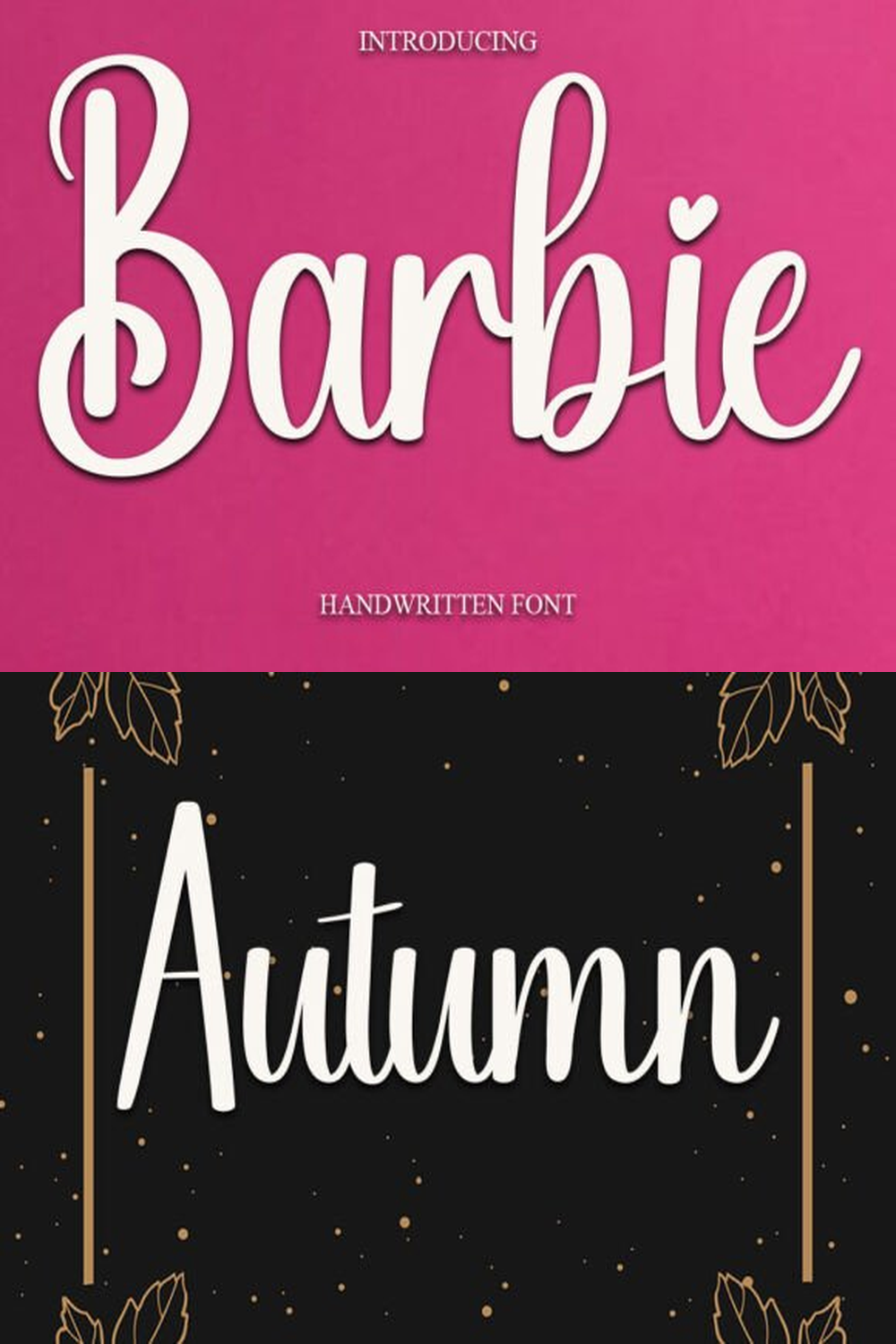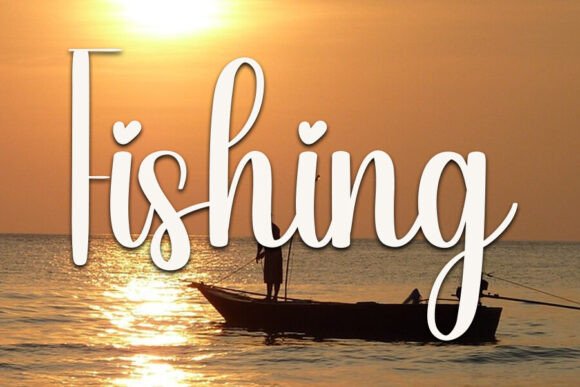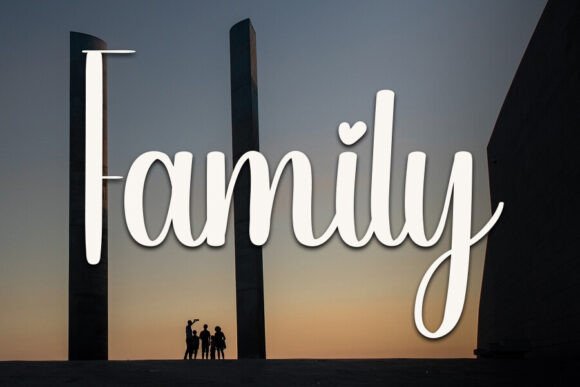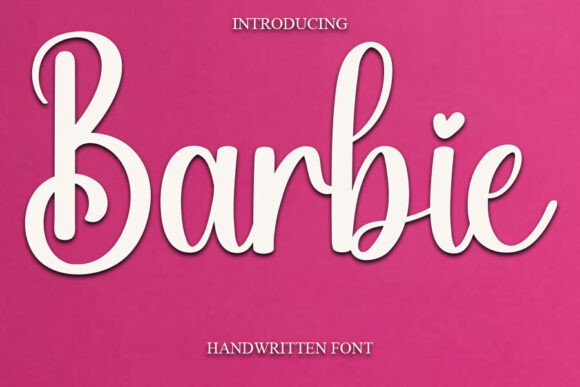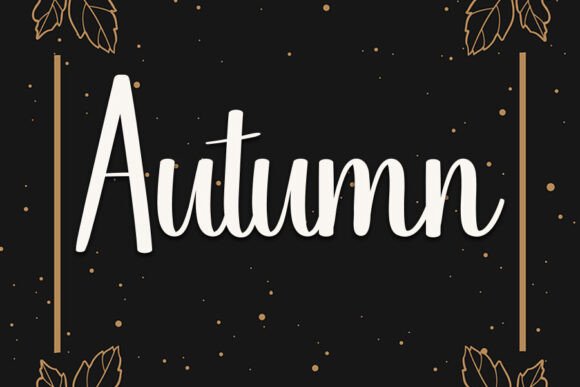
About the Barbie Font
Discover the charm of Barbie Font. This font is a perfect blend of modern aesthetics and classic appeal. Barbie is a simple handwritten font. This versatile font has a wide spectrum of applications ranging from greeting cards to headlines and is guaranteed to add a simple and natural feel to your next project!